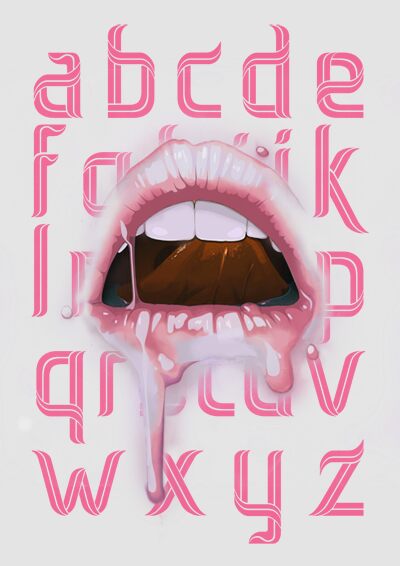
Loveleaves by Azmi Kamarullah is a free decorative outlined font with tall, high-contrast letters and fine inset lines that curl through the broader strokes. Its narrow, flowing shapes recall ornate Art Nouveau display lettering.
Fashion and theatrical glamour are its clearest territory, making it well suited to boutique packaging, music posters, and event graphics with an ornate, slightly mysterious edge. In editorial design, the looping inner stripes can echo decorative borders or fashion illustration, so the lettering becomes part of the page's ornament on magazine covers, feature openers, and arts publishing rather than serving only as a conventional title line.